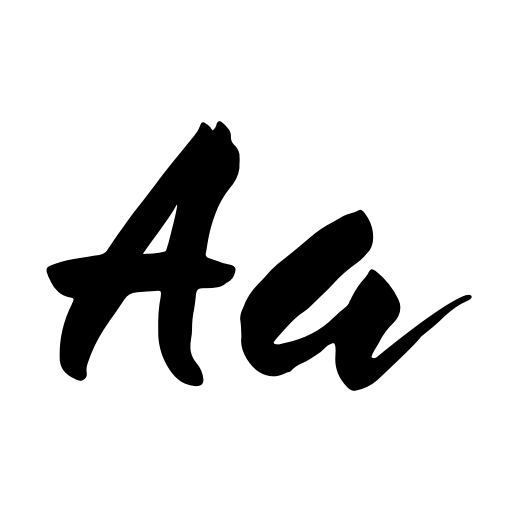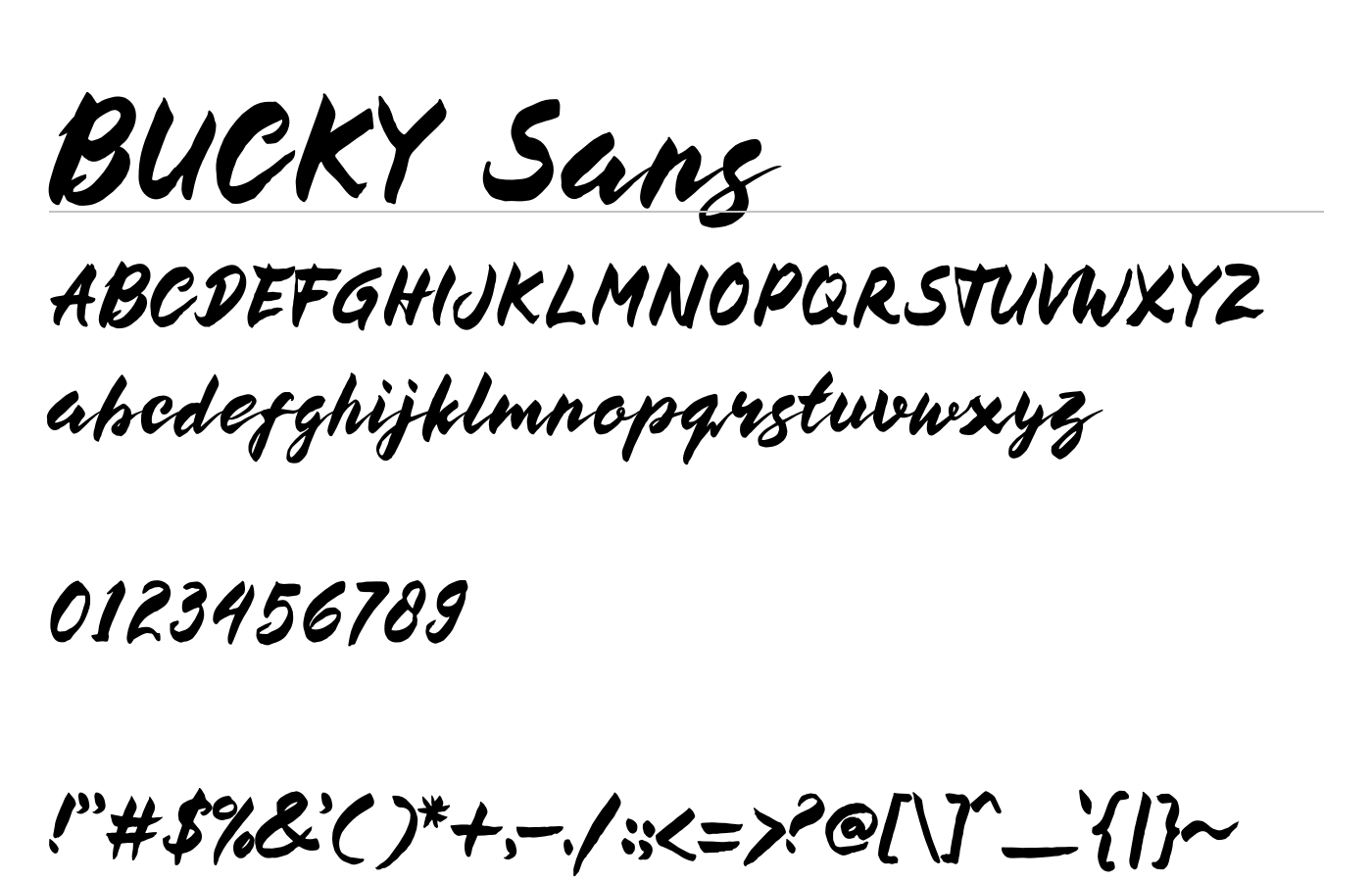
BUCKY Sans is a bold, expressive script font with a lively, hand-painted feel that combines the casual energy of handwriting with strong, dynamic strokes. Its irregular, slightly condensed letterforms and playful curves make it perfect for creative projects, branding, and headlines where a personal, energetic touch is desired. Ideal for eye-catching posters, logos, and packaging, BUCKY Sans brings a vibrant, informal personality to any design.
BUCKY Sans Font
About BUCKY Sans Font
| Font family | BUCKY Sans Font |
| Designer | Thomas Joko Purba |